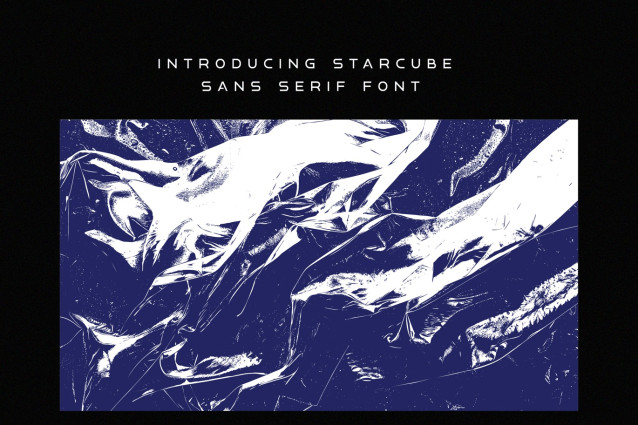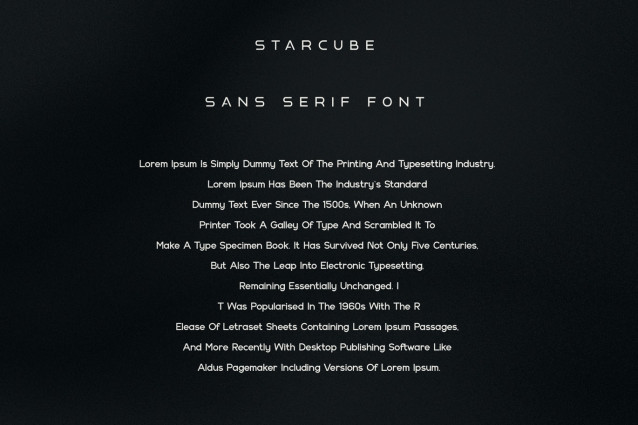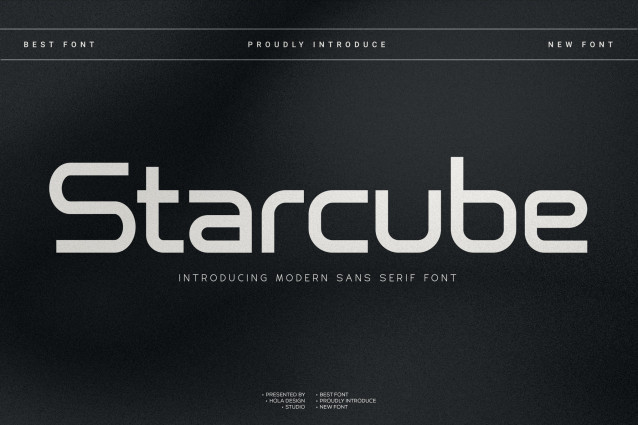
Starcube Font
Starcube Font Ready to be used for your creations, such as labeling, film scenes, posters, film titles, concerts, album covers, logos and much more.